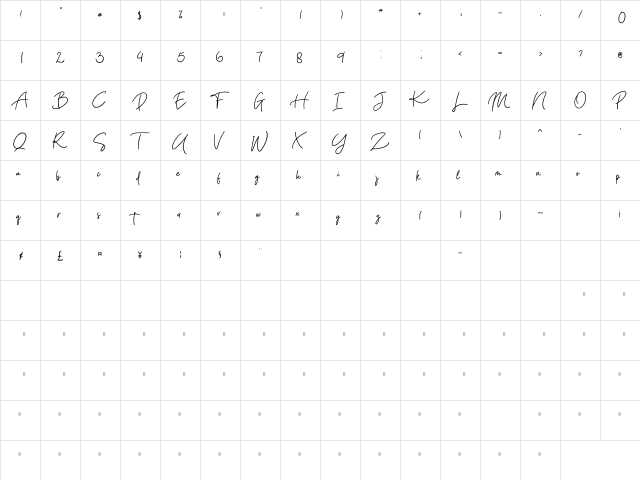
Magic Glass Regular
| Designer | RIsca Anitawati |
Design Context for Magic Glass Typeface
Magic Glass is a composed and adaptable typeface that performs quietly and consistently across a wide range of design contexts.